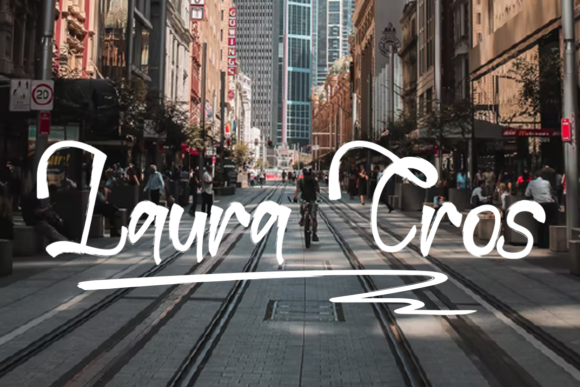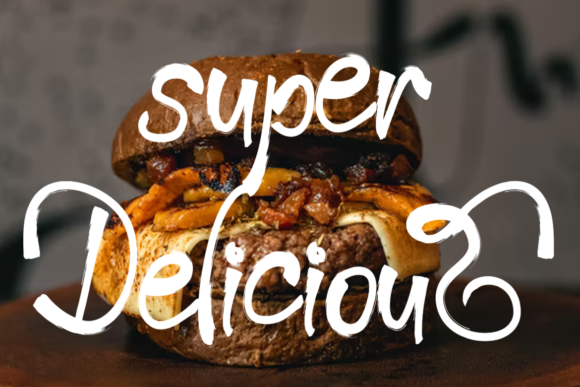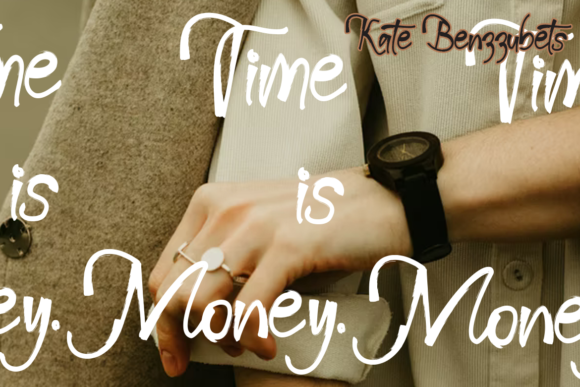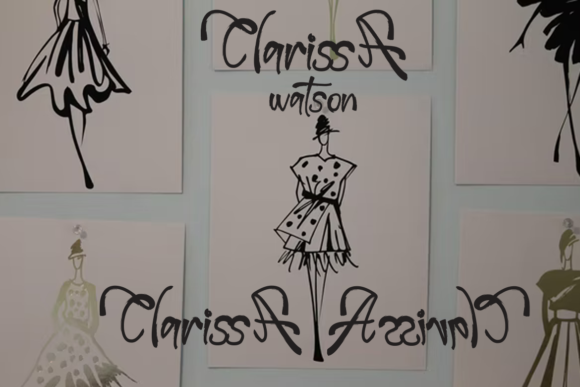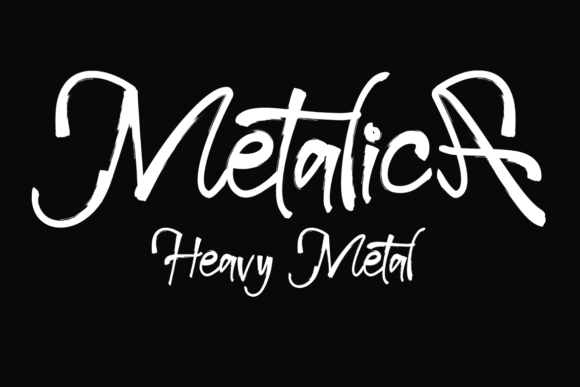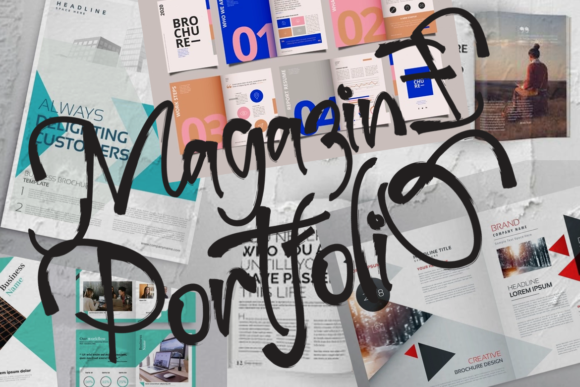
Australia Font: A Delicate and Eye-Catching Handwritten Font for Designers and Crafters
Australia Font is a beautiful, delicate, and eye-catching handwritten font that has been gaining popularity among designers and crafters. This font is perfect for a variety of design needs, including logos, brands, packaging, book titles, and more. In this article, we’ll explore the features and benefits of Australia Font, and why it’s a must-have for any designer or crafter looking to add a touch of elegance and sophistication to their work.
What is Australia Font?
Australia Font is a carefully crafted handwritten font that is designed to be both elegant and versatile. Its delicate strokes and beautiful letterforms make it perfect for a wide range of design applications, from logos and branding to packaging and book titles. This font is sure to add a touch of sophistication and style to any design project.
Key Features of Australia Font
Australia Font comes with a range of features that make it easy to use and versatile. Some of its key features include:
- PUA Encoding: Australia Font is PUA encoded, which means you can access all of the glyphs and swashes with ease. This makes it easy to customize your designs and add unique touches to your work.
- Handwritten Style: Australia Font has a beautiful handwritten style that is both elegant and eye-catching. Its delicate strokes and letterforms make it perfect for a wide range of design applications.
- Easy to Use: Australia Font is amazingly easy to use, even for designers and crafters who are new to font design. Its simple and intuitive design makes it easy to get started with, and its versatility means you can use it for a wide range of projects.
Benefits of Using Australia Font
Australia Font offers a range of benefits for designers and crafters, including:
- Elegance and Sophistication: Australia Font adds a touch of elegance and sophistication to any design project. Its delicate strokes and beautiful letterforms make it perfect for designs that require a high level of style and refinement.
- Versatility: Australia Font is versatile and can be used for a wide range of design applications, from logos and branding to packaging and book titles.
- Easy to Customize: Australia Font is PUA encoded, which means you can access all of the glyphs and swashes with ease. This makes it easy to customize your designs and add unique touches to your work.
Design Ideas Using Australia Font
Australia Font is versatile and can be used for a wide range of design applications. Here are some design ideas to get you started:
- Logos and Branding: Use Australia Font to create elegant and sophisticated logos and branding for your business or organization.
- Packaging Design: Use Australia Font to add a touch of style and refinement to your packaging design.
- Book Titles: Use Australia Font to create beautiful and eye-catching book titles that will stand out on bookshelves.
- Stationery and Invitations: Use Australia Font to create elegant and sophisticated stationery and invitations for special occasions.
Australia Font is a beautiful, delicate, and eye-catching handwritten font that is perfect for designers and crafters looking to add a touch of elegance and sophistication to their work. Its PUA encoding makes it easy to customize and use, and its versatility means you can use it for a wide range of design applications. Whether you’re creating logos and branding, packaging, book titles, or stationery and invitations, Australia Font is a must-have font for any designer or crafter.